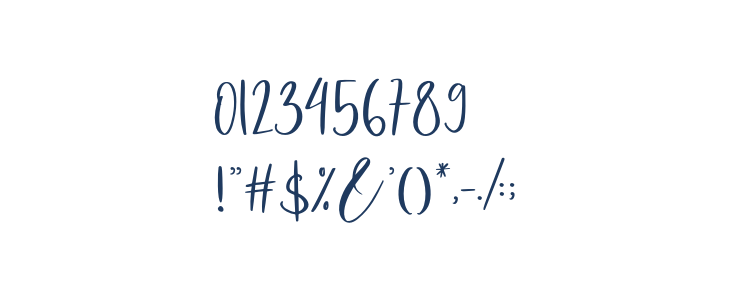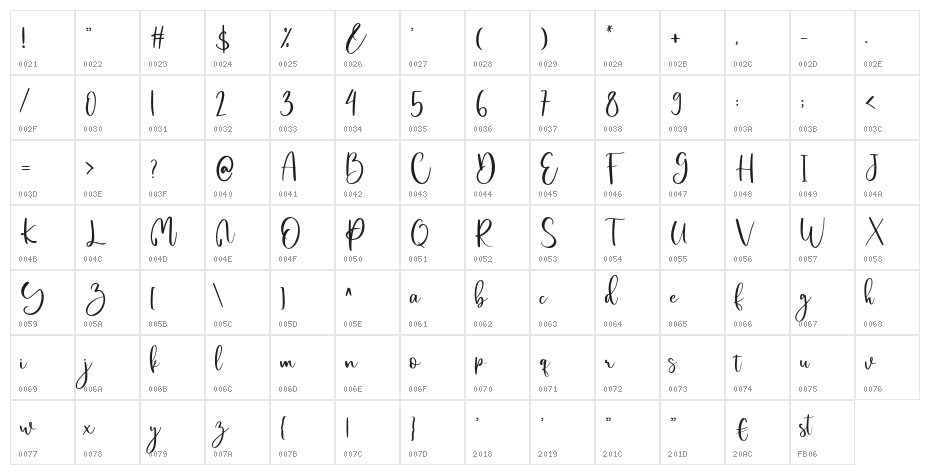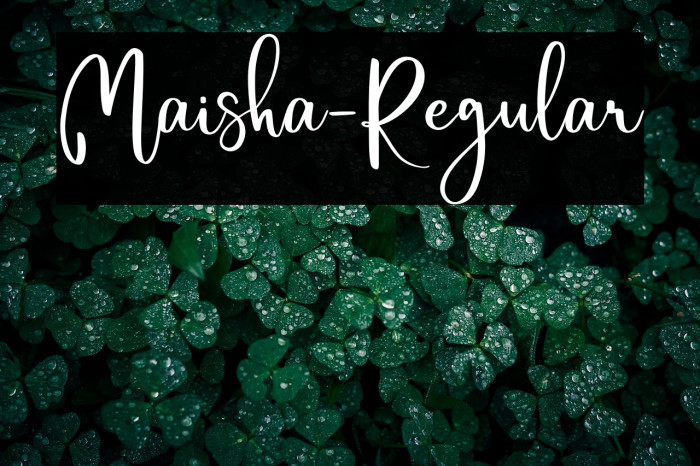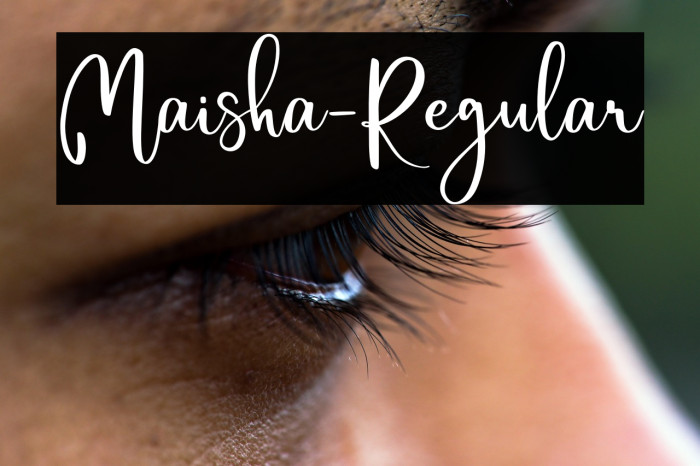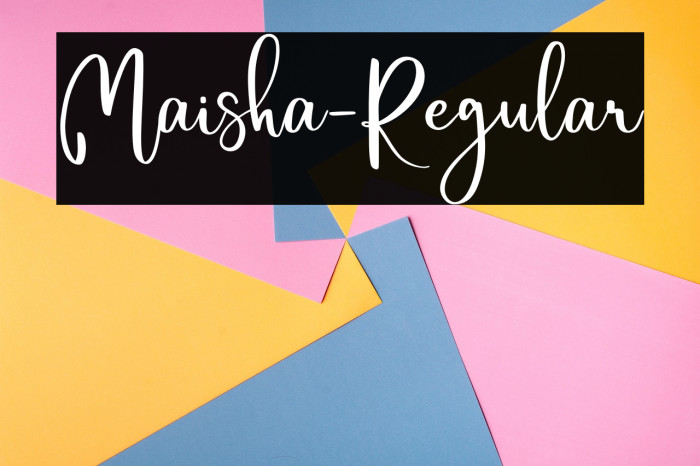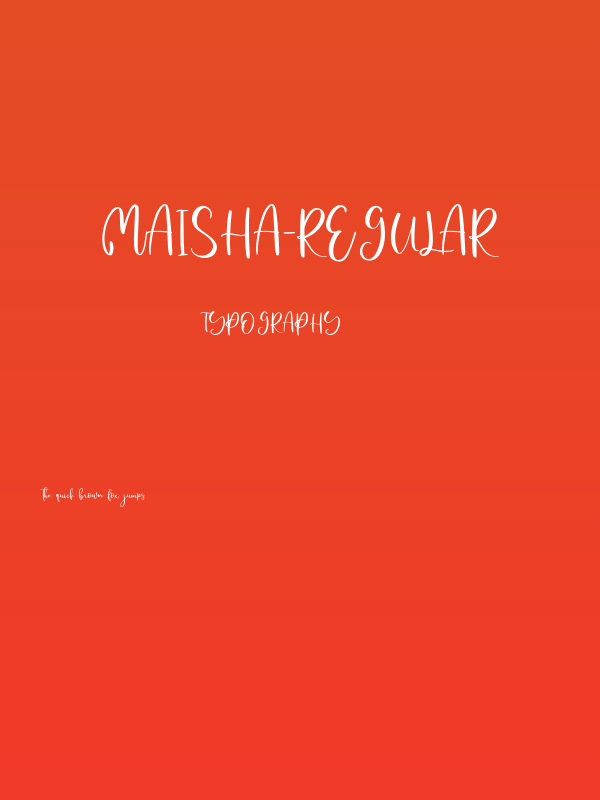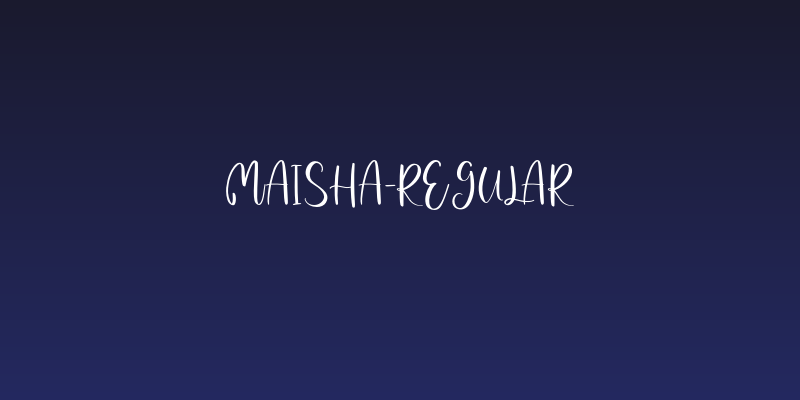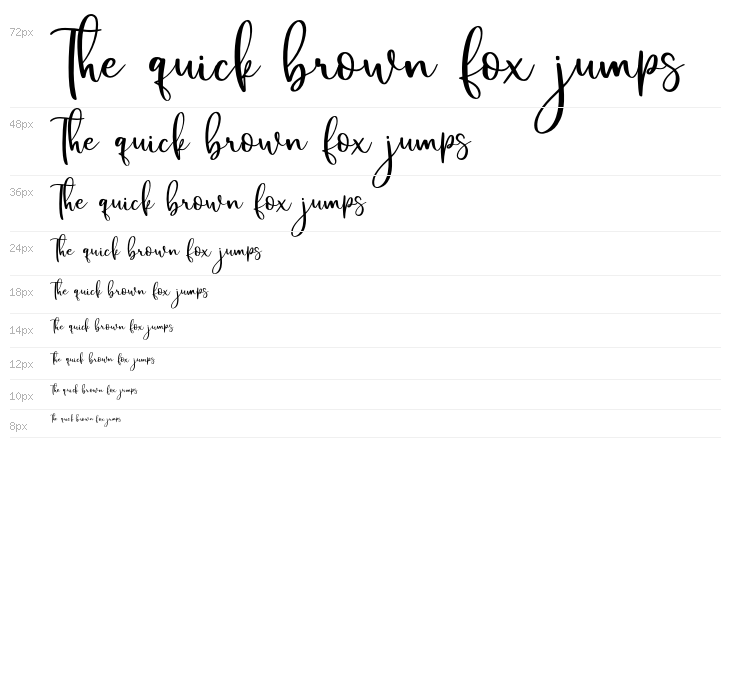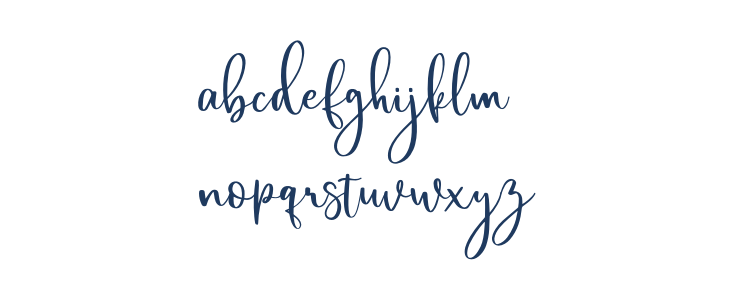
Maisha-Regular Font
Maisha-Regular Description
This font features a lively and expressive script style, characterized by its fluid and dynamic strokes. The uppercase letters are bold and sweeping, with a playful yet elegant flair, while the lowercase letters maintain a consistent flow with intricate loops and curves. The numbers and special characters complement the overall design with a similar energetic and artistic touch. This font exudes a sense of creativity and personal expression, making it ideal for projects that require a personal or handcrafted feel.
Use CaseLogos, Invitations, Creative projects
Proposed ProjectsIdeal for wedding invitations, greeting cards, branding, and creative projects that require a personal touch.